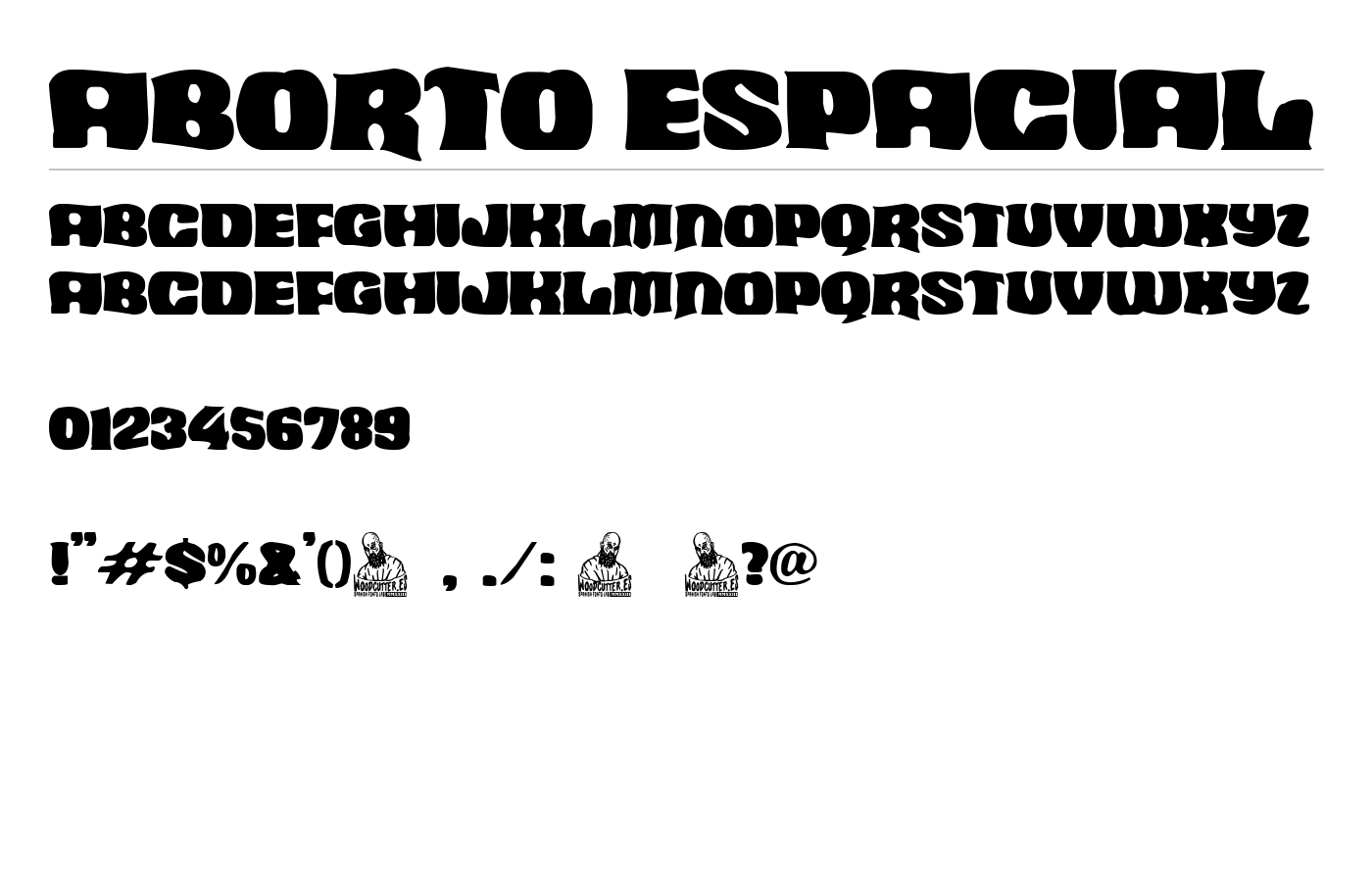
Aborto Espacial is a bold, playful display font with a chunky, rounded shape and a slightly quirky, hand-carved feel. Its irregular curves and thick strokes give it a fun, casual personality perfect for eye-catching headlines, posters, or branding that wants to convey creativity and a relaxed vibe. This font works best in informal designs where a strong, friendly, and unique impact is desired.
Aborto Espacial Font
About Aborto Espacial Font